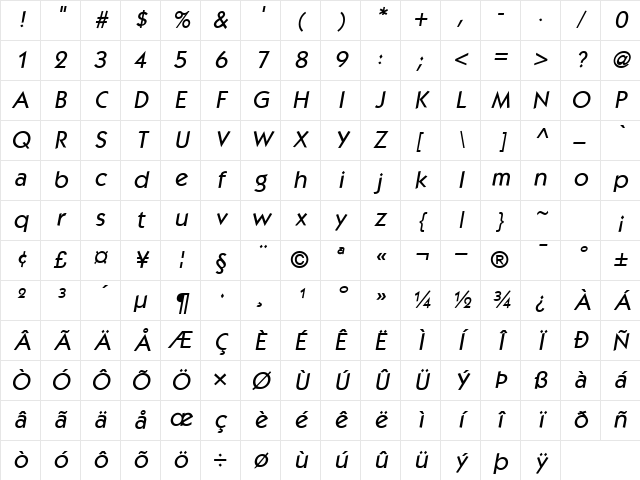
Kaggish Oblique
Design Context for Kaggish
Kaggish is a composed and adaptable typeface that performs quietly and consistently across a wide range of design contexts. The slanted form adds forward momentum and visual energy.
Pro Tip: Use Kaggish for emphasis, pull quotes, and subheadings where its slanted energy can add rhythm to the layout.